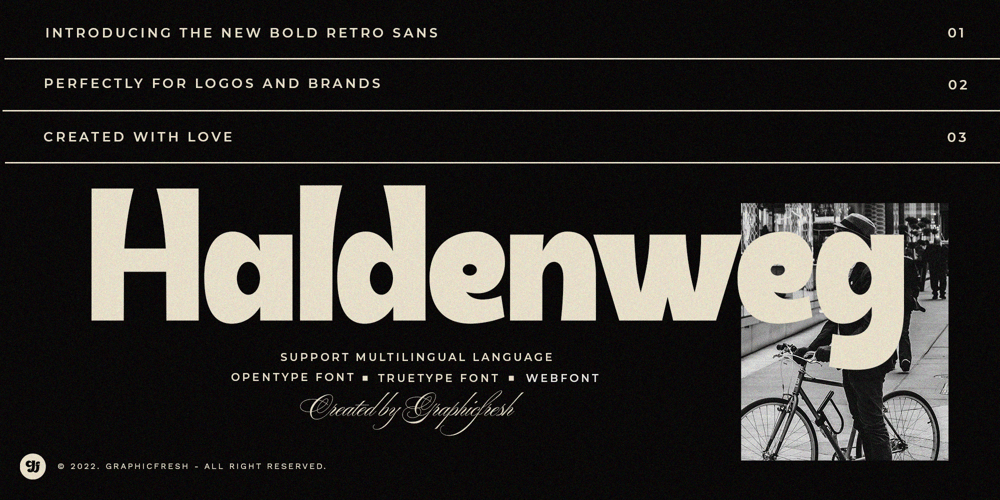
Haldenweg Font Family was designed by Muhammad Husni Haikal and published by Graphicfresh. Haldenweg contains 1 styles and family package options. Introducing the new font in retro style. An adaptation of the life of the design industry in the 80s and 90s. We made this so you can reminisce in a classic style. This font looks classic, but a modern and elegant impression is still embedded in it.